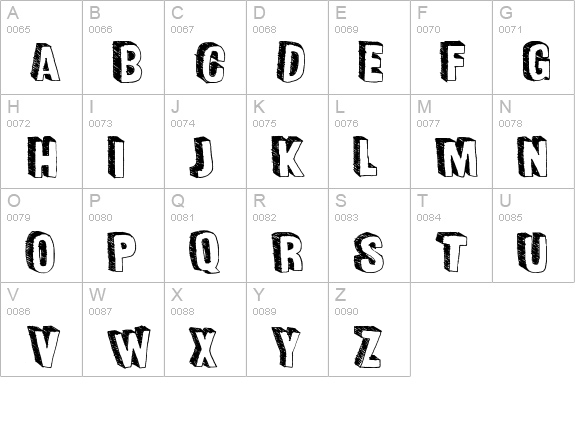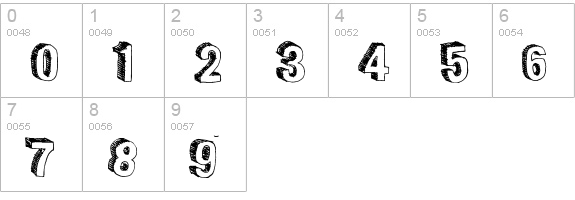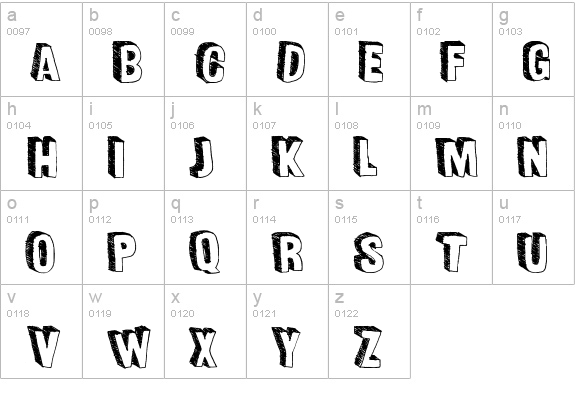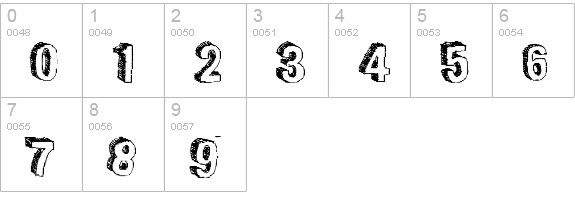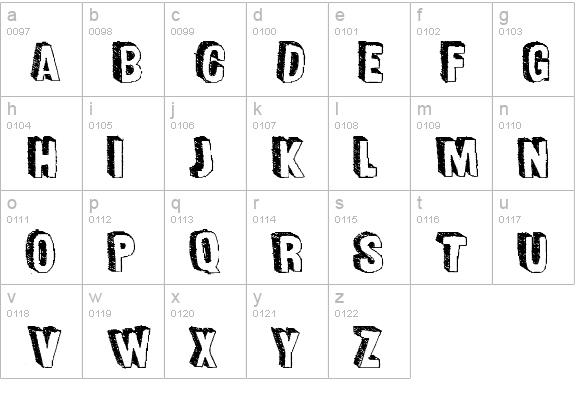
FunSized is a free for personal use font in the Fancy > 3D category. It has been downloaded 43 times and is available for Windows, Mac and Linux.
FunSized font is the epitome of playful and whimsical typography. With its quirky and unique design, this font is perfect for adding a touch of fun to any project. Whether you're creating a birthday invitation, designing a children's book cover, or simply adding a pop of personality to your website, FunSized font is sure to make a statement. What makes FunSized font even more appealing is that it is completely free to download at FontsMarket.com. Yes, you read that right - this delightful font can be yours at absolutely no cost. Gone are the days of scouring the internet for a free font that matches your creative vision. FunSized font is readily available and just a click away. Not only is FunSized font visually captivating, but it is also incredibly versatile. With multiple weights and styles to choose from, you have the freedom to experiment and create a truly unique design. Whether you prefer a bold and attention-grabbing look or a more subtle and elegant aesthetic, FunSized font has got you covered. So why wait? Head over to FontsMarket.com and download FunSized font today. Let your imagination run wild and have fun with this fantastic free font. Whether you're a professional designer or an enthusiastic hobbyist, FunSized font is the perfect addition to your font collection. Get ready to unleash your creativity and make your projects stand out with this delightful and freely available font.